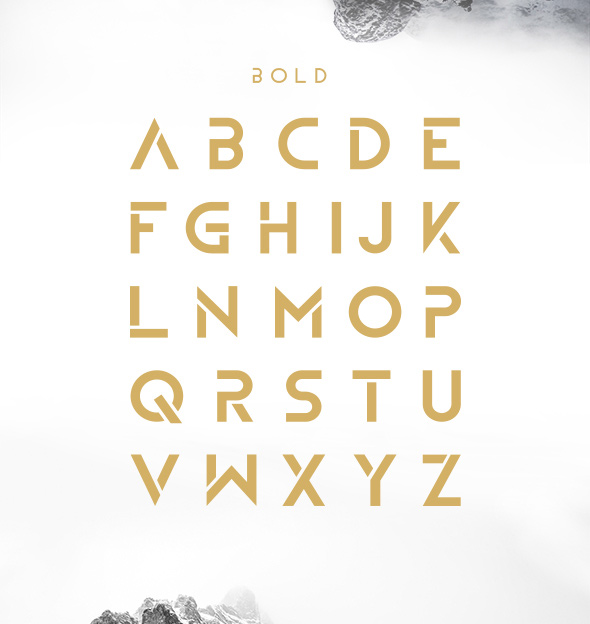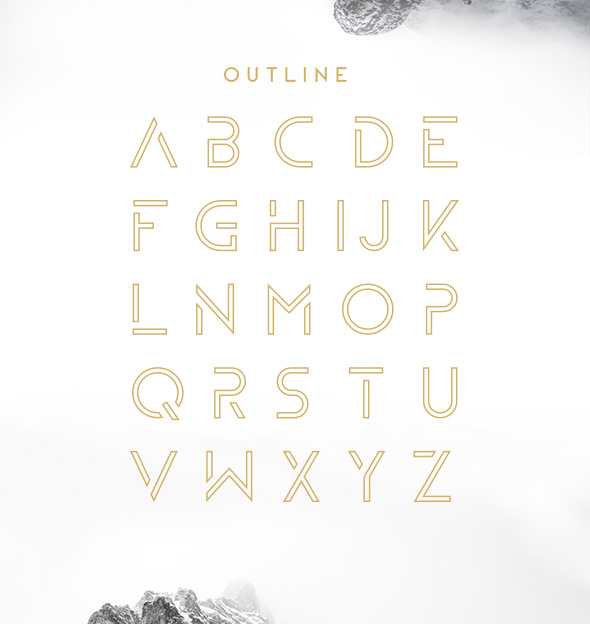
Hello Guys! I’m really exited to share my new typeface named “ZELDA”
ZELDA IS AN MINIMAL DISPLAY TYPEFACE INSPIRED BY THE CLASSIC SANS SERIF FONT FAMILY. THIS TYPEFACE IS PERFECT FOR LOGOTYPES/POSTERS AND HEADLINES.